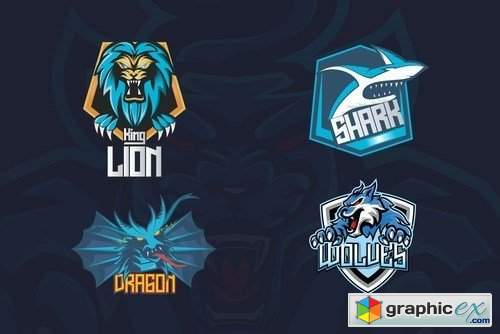
Jaguar Jugglers
This pair was inspired by the esport gaming logo design that i saw on some coffee shop, It was crafted by hand specially to add natural handmade feeling in its brand identity than i make it clean with pentool.